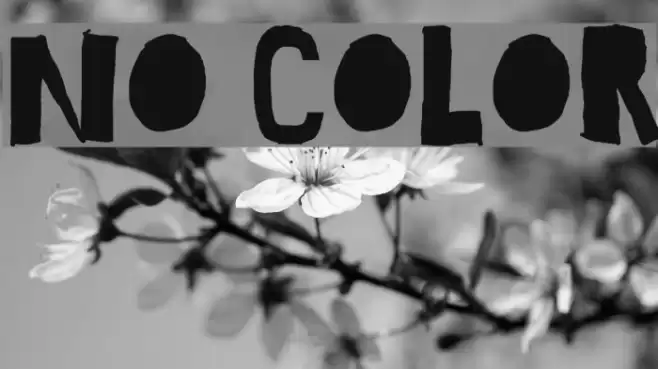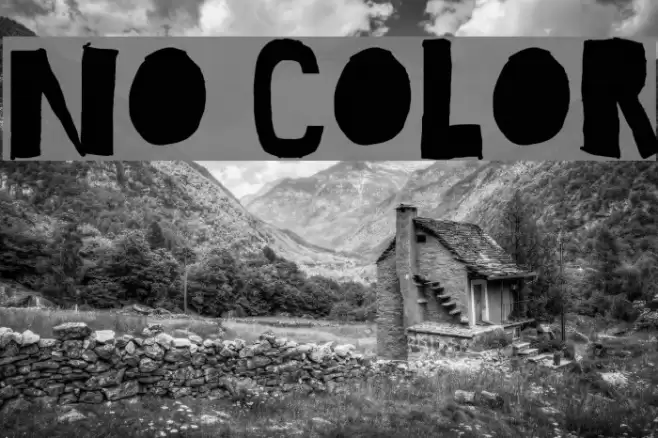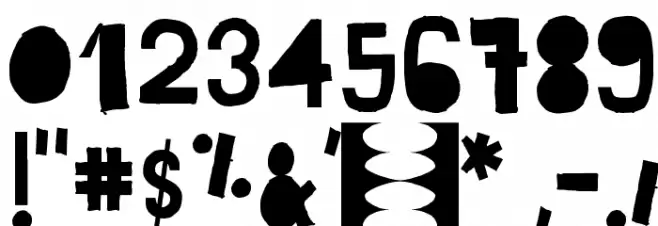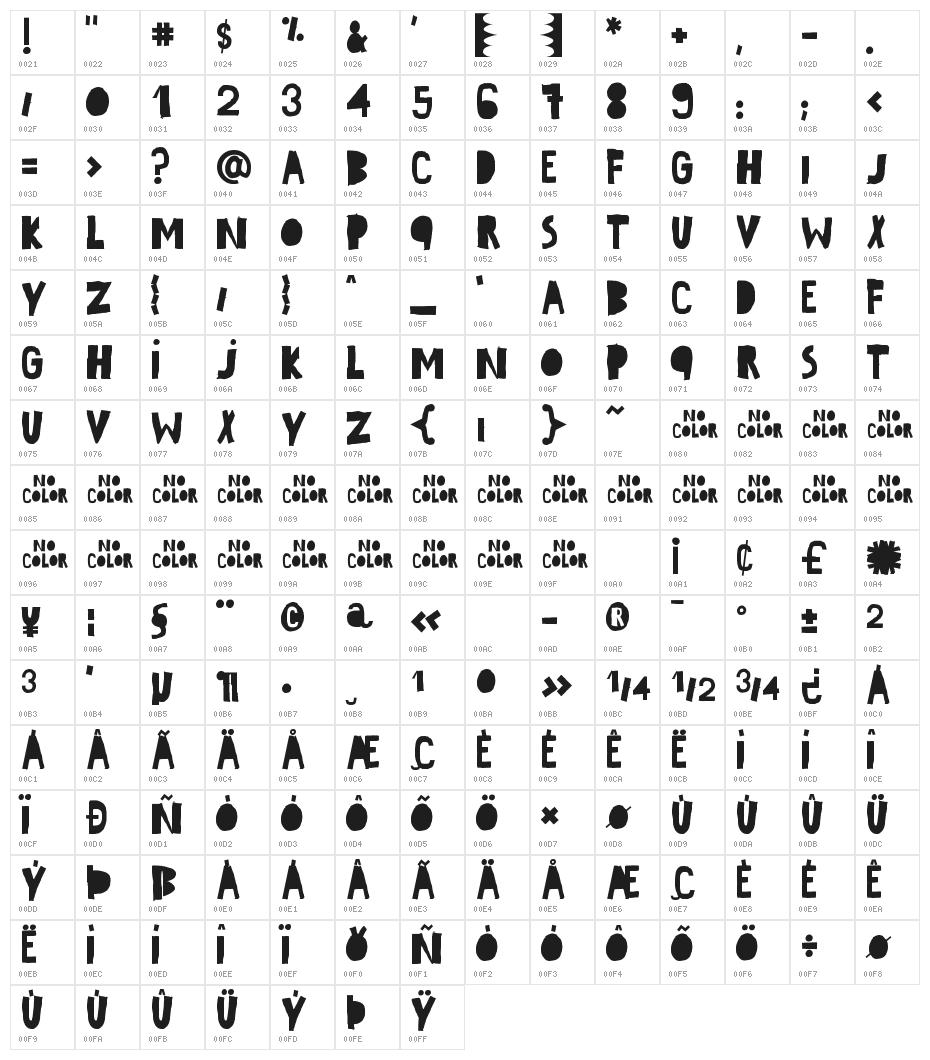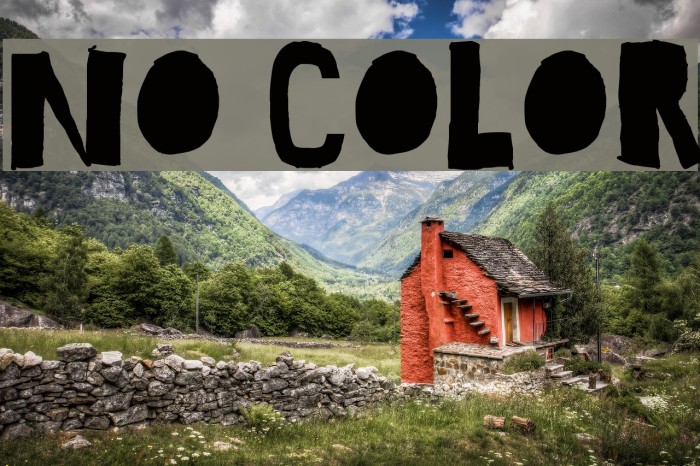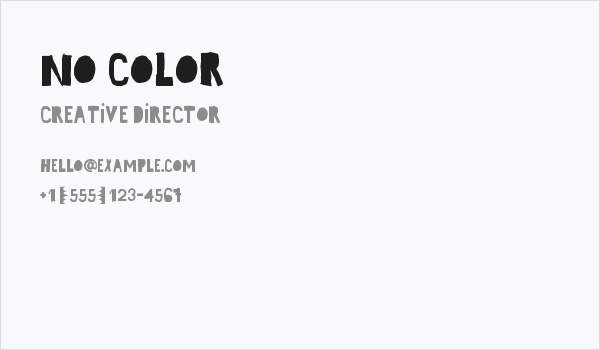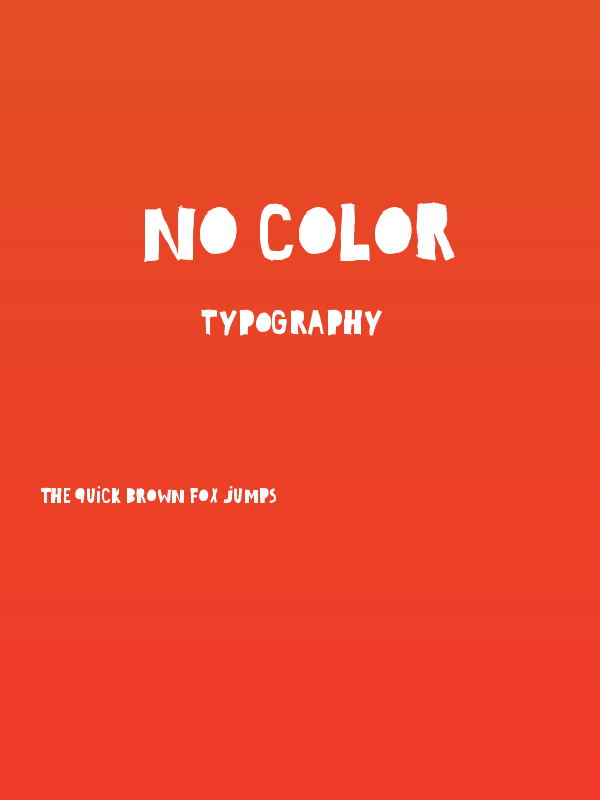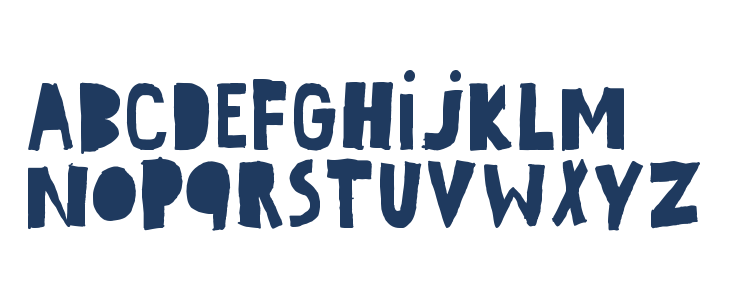
No Color Font
No Color Description
This font features a bold, playful style with irregular, hand-drawn characteristics. The letters are thick and uneven, giving a casual and artistic feel. The uppercase and lowercase letters maintain a consistent style, with exaggerated curves and varying line thicknesses. Numbers and special characters follow the same whimsical design, making the font suitable for creative and informal applications. The overall appearance is dynamic and eye-catching, ideal for projects that require a fun and engaging typeface.
A bold, playful, hand-drawn font with irregular, artistic characteristics from Distorted Eroded fonts.
- Proposed Projects: Ideal for children's books, posters, greeting cards, and creative branding projects.
- Overall Style: Playful, Artistic, Casual
- Use Case: Headlines, Posters, Creative Branding